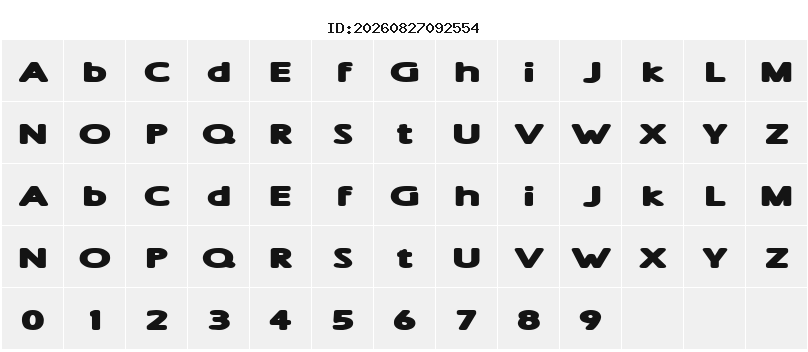
378-CAI978 Preview
About 378-CAI978.ttf
378-CAI978.ttf is a modern, elegant sans-serif font designed for ultimate readability and visual harmony. Perfect for branding, headlines, web design, and print materials.